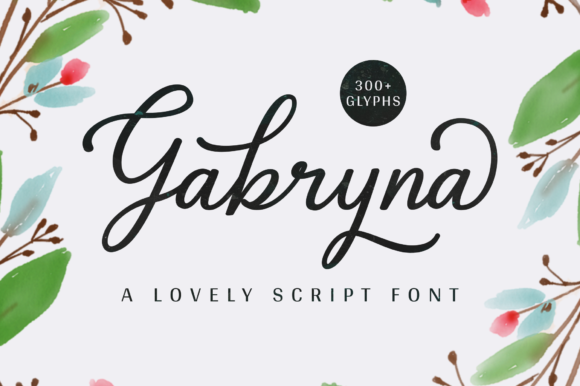
Gabryna Font
**Immerse Yourself in the Enchanting World of Gabryna**
Prepare to be captivated by Gabryna, a breathtaking script font that intertwines timeless elegance with modern flair. Inspired by the ethereal beauty of classic calligraphy, it bestows an air of sophistication upon every creation.
Journey through the whimsical strokes and delicate flourishes of Gabryna. Each letter dances across the page, carrying a whisper of romance and a dash of vintage charm. Whether you're crafting heartfelt invitations, enchanting logos, or captivating social media posts, Gabryna's enchanting allure will elevate your designs to extraordinary heights.
**Unleash Your Imagination with Gabryna's Limitless Possibilities**
Indulge in the creative freedom that Gabryna offers. Its versatility knows no bounds, making it the perfect companion for a myriad of design endeavors:
* **Create enchanting invitations:** Embark on a journey of love and laughter as you pen the most enchanting wedding invitations and save-the-dates. Gabryna's romantic essence will set the tone for a truly unforgettable celebration.
* **Design captivating logos:** Elevate your brand's identity with a logo that exudes sophistication and grace. Gabryna's timeless elegance will leave a lasting impression, symbolizing the essence of your business.
* **Craft eye-catching social media posts:** Engage your audience with social media posts that radiate charm and wit. Gabryna's captivating allure will draw attention, making your content irresistible.
**Experience the Magic of Gabryna**
With Gabryna, the possibilities are endless. Let its beauty inspire you to create designs that evoke emotion, spark imaginations, and leave an indelible mark on the hearts of those who behold them.